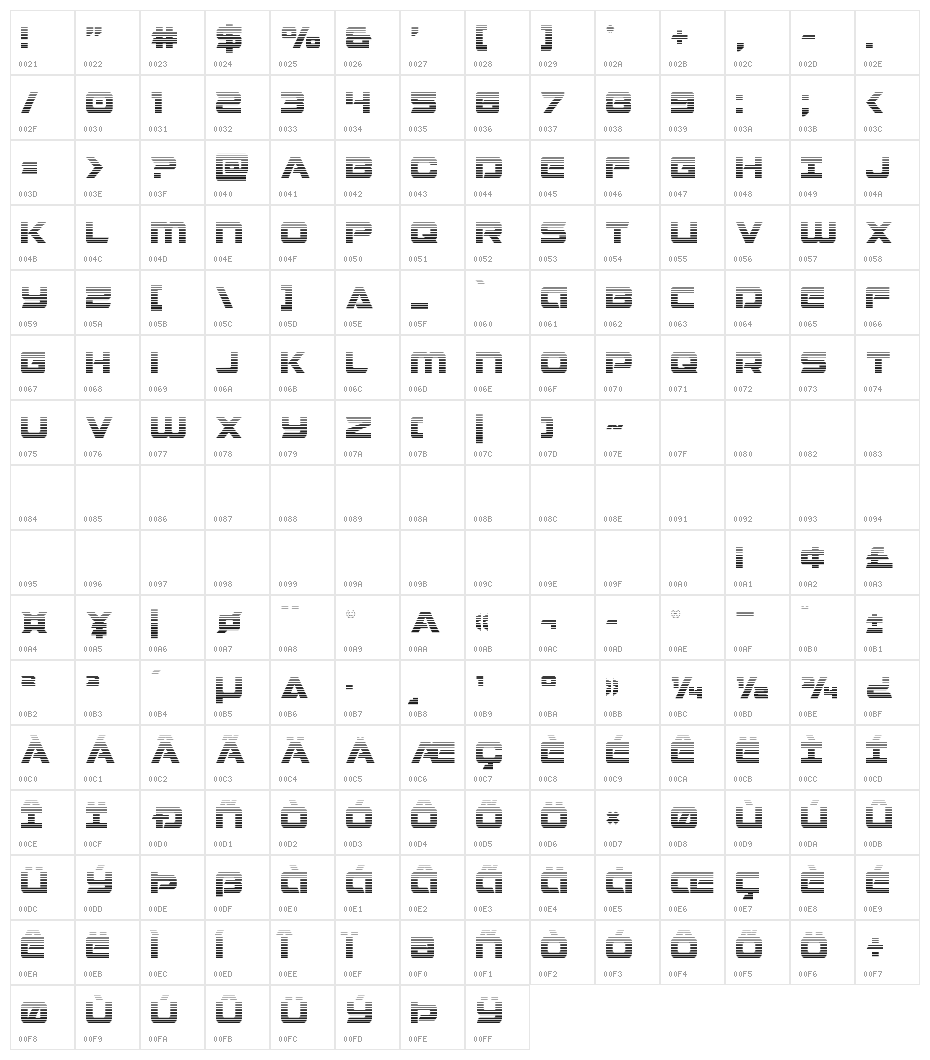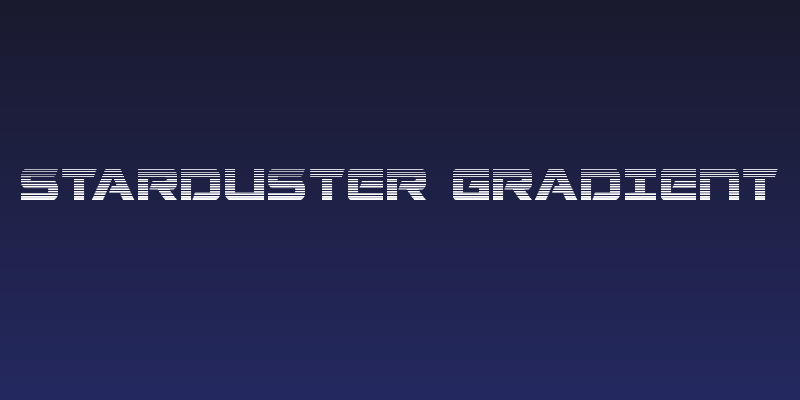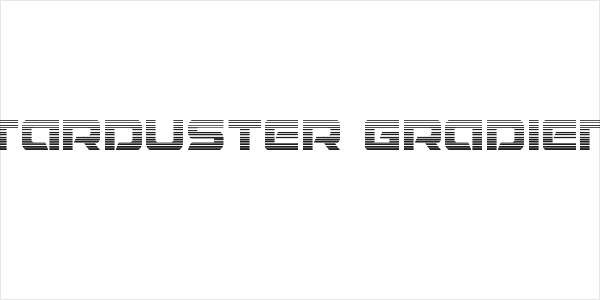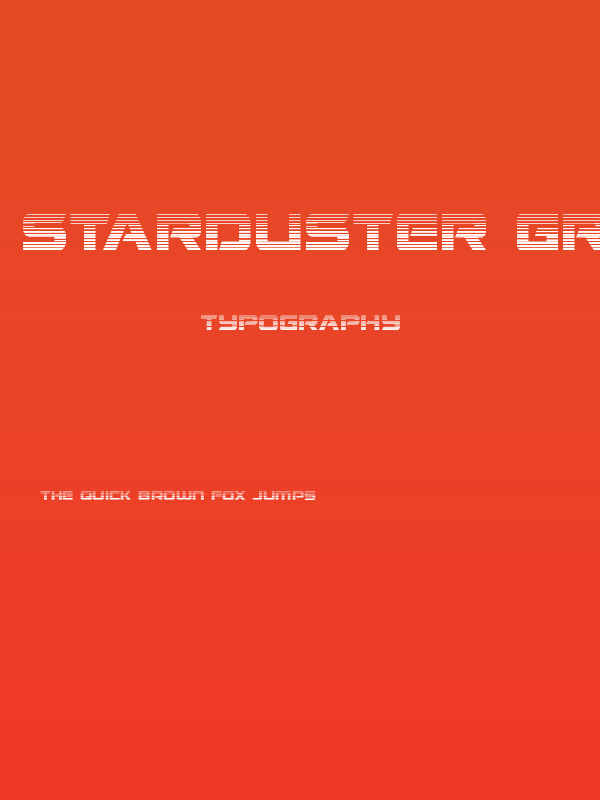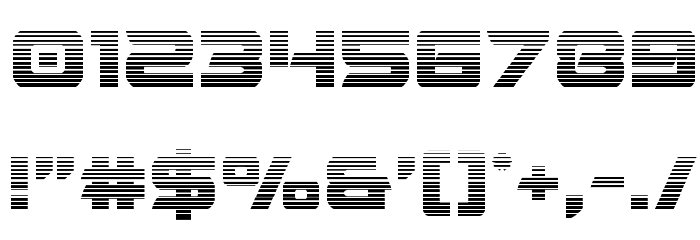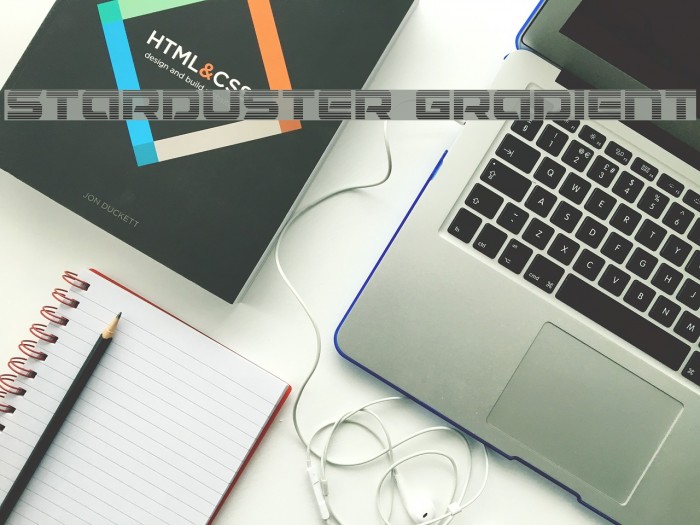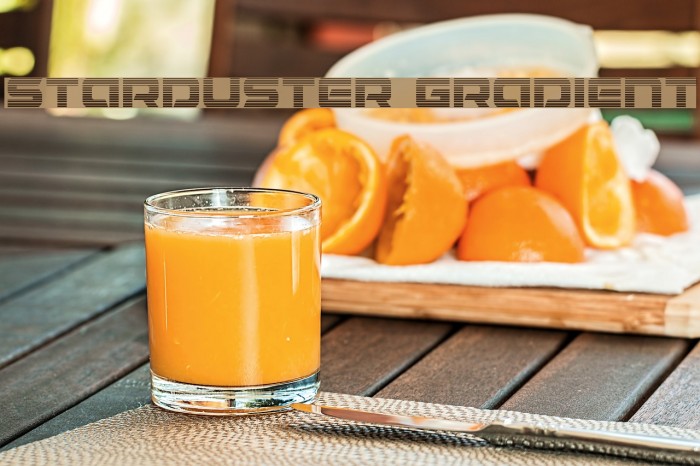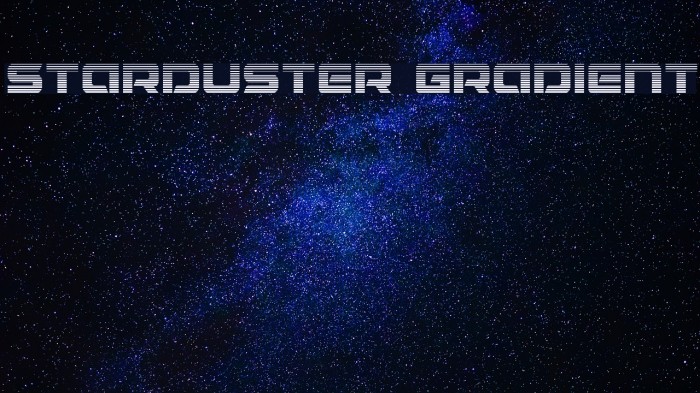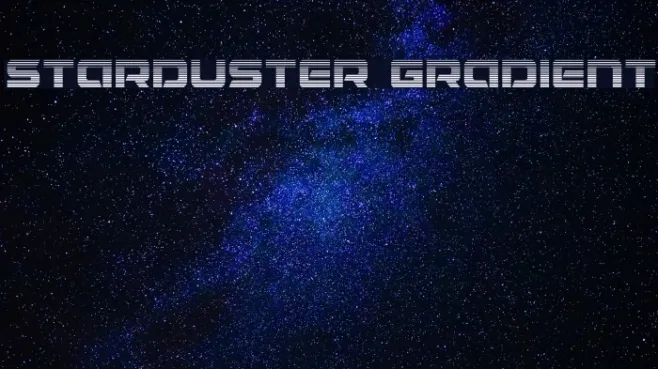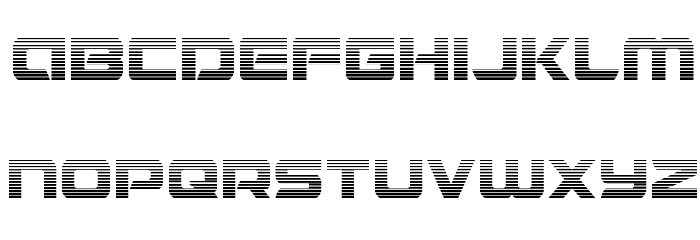
Starduster Gradient Font
Starduster Gradient Description
This font features a distinct gradient effect with horizontal lines creating a sense of motion and depth. The characters are bold and geometric, with a futuristic and digital aesthetic. The uppercase and lowercase letters maintain a consistent style, emphasizing angular shapes and sharp edges. Numbers and special characters follow the same design principles, ensuring uniformity across all glyphs. The font's unique style makes it stand out, ideal for projects that require a modern and dynamic look.
| Proposed Projects | Ideal for sci-fi themed designs, tech branding, video game titles, and digital art projects. |